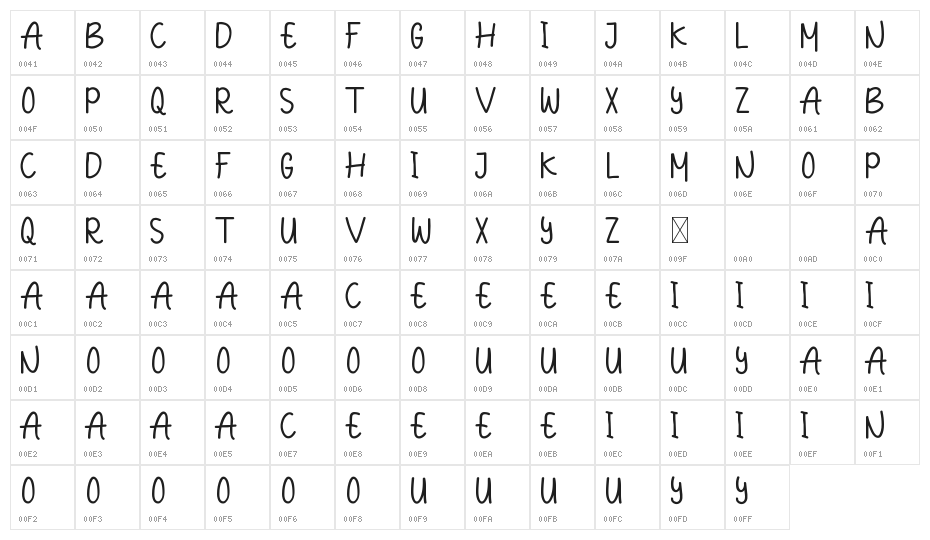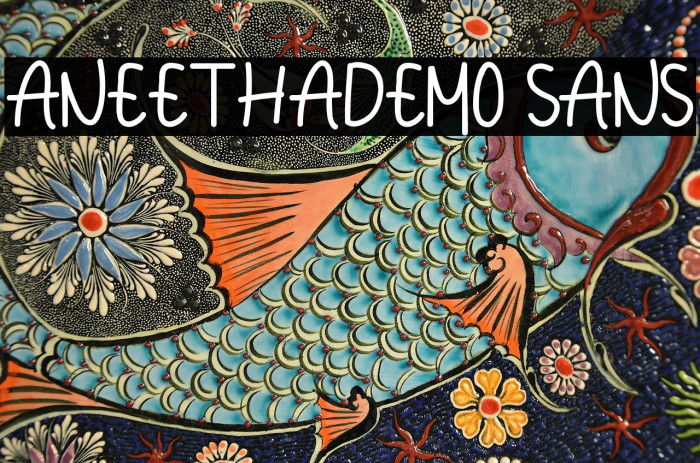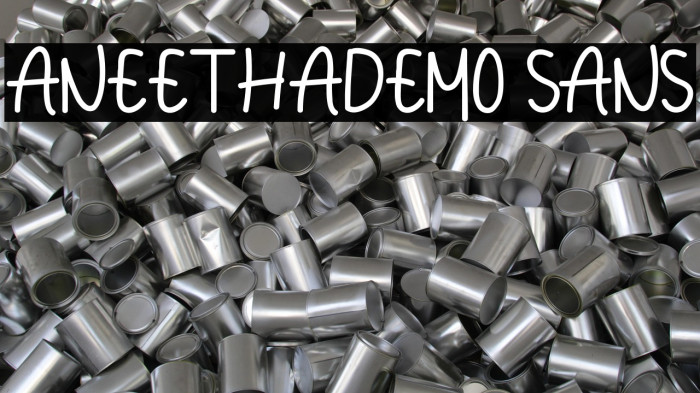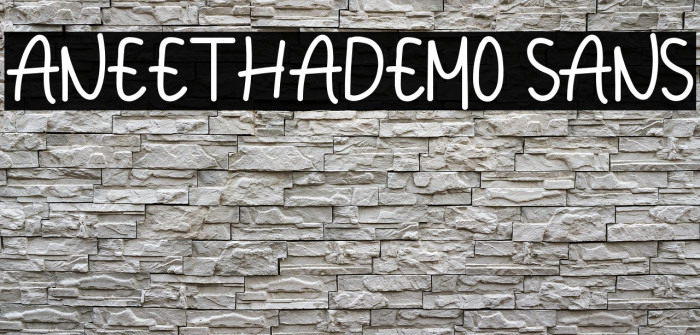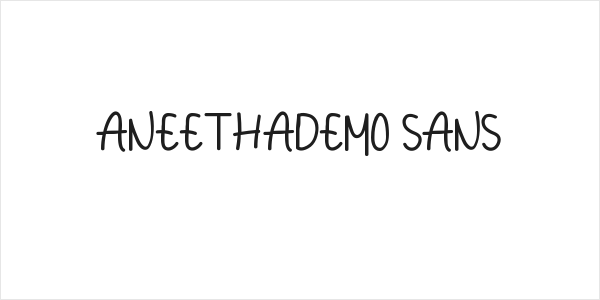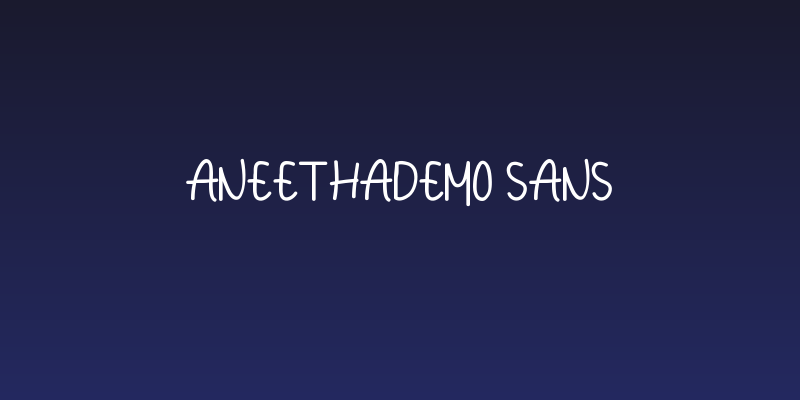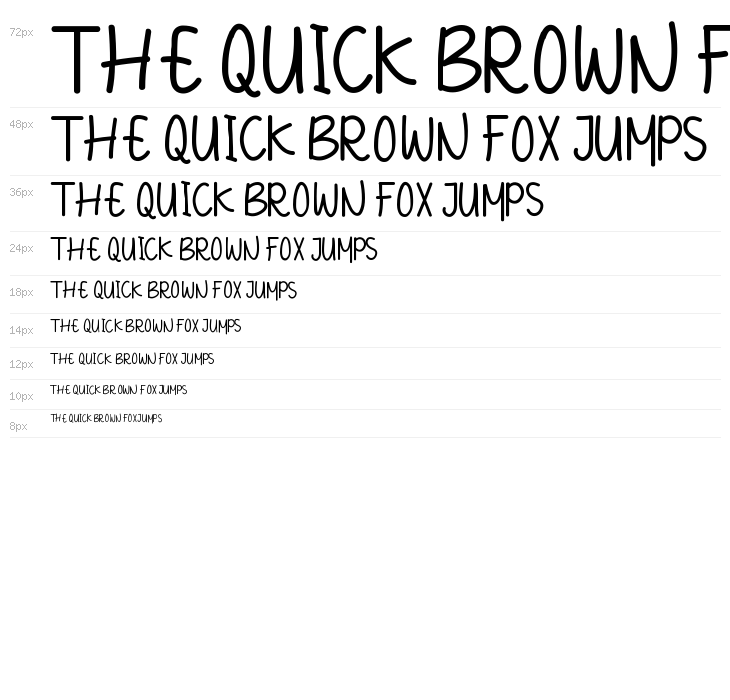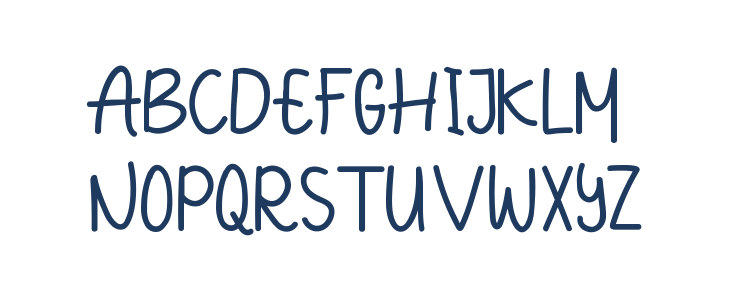
Aneethademo Sans Font
Aneethademo Sans Description
This font features a playful and casual handwritten style, characterized by its smooth, rounded letterforms and consistent stroke width. The letters are slightly slanted, giving a dynamic and informal appearance. The uppercase and lowercase letters maintain a uniform height, contributing to a cohesive look. The font's simplicity and clarity make it highly legible, while its whimsical nature adds a touch of personality. The spacing between characters is balanced, ensuring readability without appearing cramped. This font is versatile, suitable for a variety of creative projects that require a friendly and approachable aesthetic.
| Use Case | Headlines, Logos, Informal text |
| Proposed Projects | Ideal for greeting cards, children's books, casual branding, and social media graphics. |